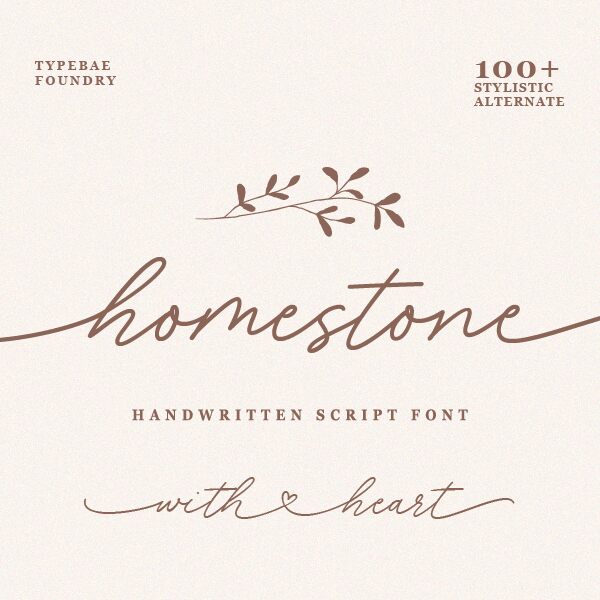
Homestone font by Typebae Foundry is a free handwritten font combining elegance with casualness. The separate letters were created with an overall balanced design that is both organic and approachable due to its flowing gentle style. The font draws on the style of cursive handwriting with a modern twist, making it stylish and perfect for personal and professional use. Each line is precisely calculated to appear neat and soft. Homestone is the ideal font choice for anybody looking for a contemporary and versatile script.
The artistic typeface was created to help users beautify their creative projects by giving them a personal vibe. The versatile free font family is useful for branding, packaging, book covers, magazine covers, blogs, and social media posts. Use it also in posters, billboards, signs, brochures, cards, and printed merch items. It works well in digital and print format, in small and large sizes as well.